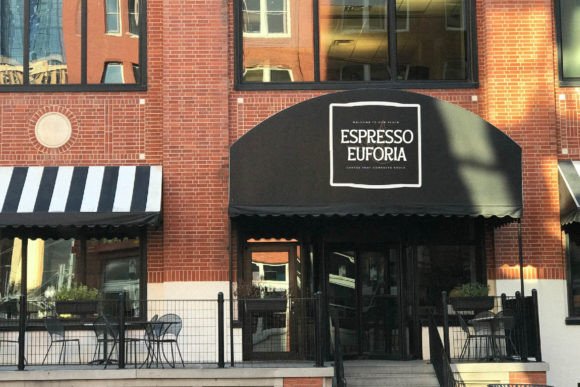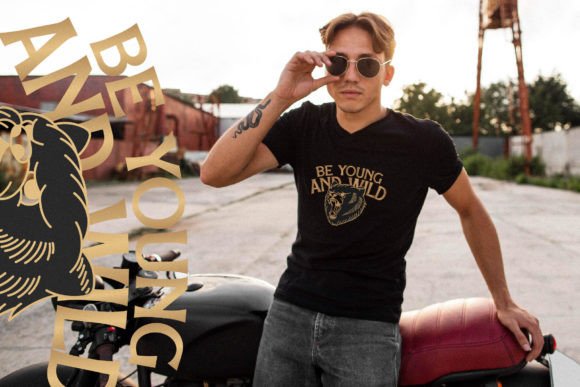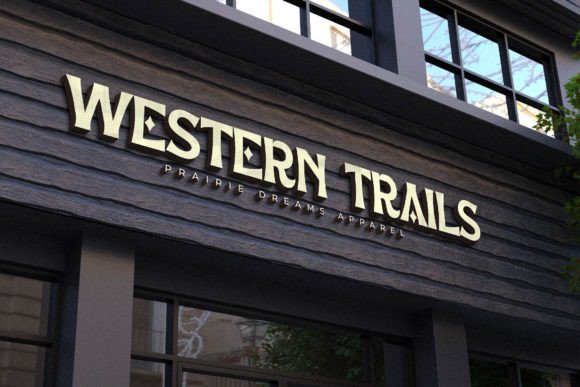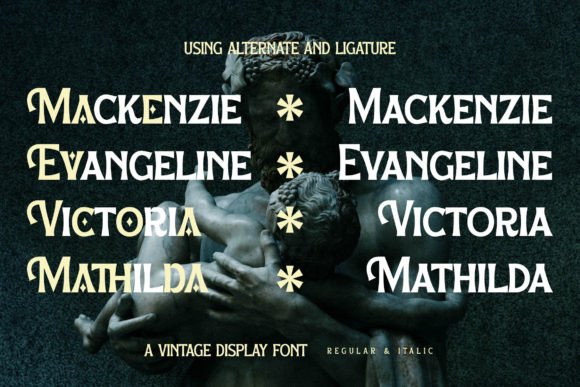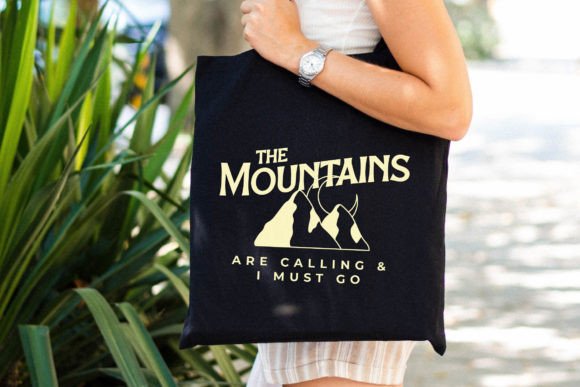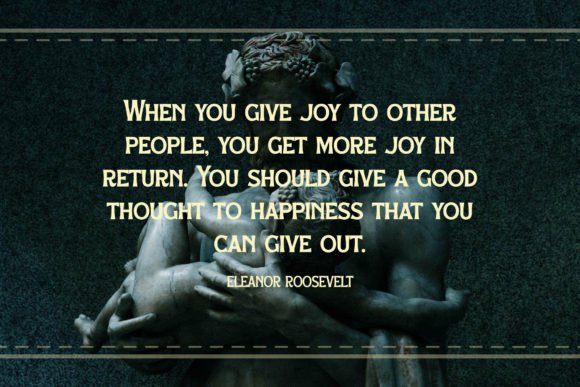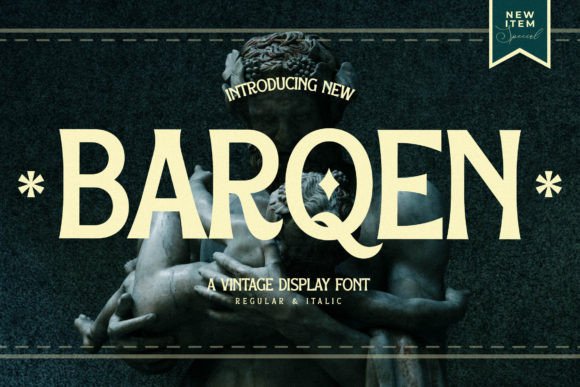
Introducing Barqen Font: A Timeless Serif Typeface for Elegant Designs
Are you on the hunt for a font that exudes sophistication, elegance, and a touch of modernity? Look no further than Barqen Font, a stunning serif typeface created by the talented team at Storytype. This beautiful font is perfect for designers and crafters seeking to add a luxurious feel to their projects, whether it’s a logo, book or movie title, fashion brand, magazine, or any other design that requires a touch of refinement.
The Story Behind Barqen Font
Barqen Font is a masterpiece crafted by Storytype, a team of skilled designers passionate about creating unique and functional typefaces. With a keen eye for detail and a deep understanding of typography, they have designed Barqen Font to be a versatile and elegant serif font that can elevate any design project. The font’s classic and modern look makes it an excellent choice for a wide range of applications, from traditional printing to digital media.
Key Features of Barqen Font
So, what makes Barqen Font stand out from the rest? Here are some of its key features:
- Unique Style: Barqen Font boasts a distinctive style that blends classic serifs with modern elements, making it perfect for designers looking to create something unique and eye-catching.
- Elegant and Luxurious: The font’s sophisticated design makes it ideal for luxury brands, high-end fashion, and elegant book or movie titles.
- Versatile: Barqen Font can be used for a variety of projects, including logos, magazines, clothing, lettering, quotes, and more.
- Modern Look: Despite its classic roots, Barqen Font has a modern feel that will make your designs stand out in a crowded market.
Use Cases for Barqen Font
Barqen Font is incredibly versatile, making it suitable for a wide range of design projects. Here are some use cases to get you started:
- Elegant Logos: Create a lasting impression with a luxurious logo that showcases your brand’s sophistication and elegance.
- Book and Movie Titles: Add a touch of glamour to your book or movie titles with Barqen Font’s classic and modern design.
- Fashion Brands: Elevate your fashion brand with a font that exudes style, sophistication, and luxury.
- Magazines and Newspapers: Use Barqen Font to add a touch of elegance to your magazine or newspaper design.
- Clothing and Accessories: Create stunning designs for clothing and accessories that showcase your brand’s unique style.
Why Choose Barqen Font?
With so many fonts available, why choose Barqen Font? Here are just a few reasons:
- High-Quality Design: Barqen Font is designed with precision and attention to detail, ensuring a high-quality finish for your designs.
- Unique Style: The font’s distinctive style sets it apart from other serif fonts, making it perfect for designers seeking something new and exciting.
In conclusion, Barqen Font is a stunning serif typeface that offers a unique blend of classic and modern design elements. Its elegant and luxurious feel makes it perfect for a wide range of design projects, from logos and book titles to fashion brands and magazines. With its high-quality design, unique style, and ease of use, Barqen Font is an excellent choice for designers and crafters seeking to elevate their designs. So why wait? Discover the beauty of Barqen Font today and take your designs to the next level.